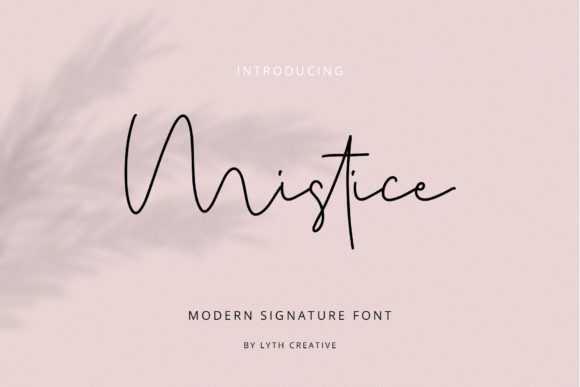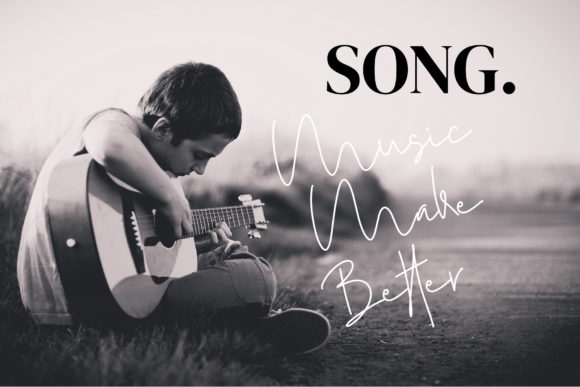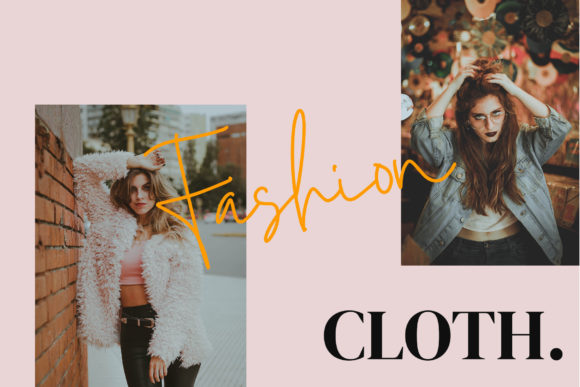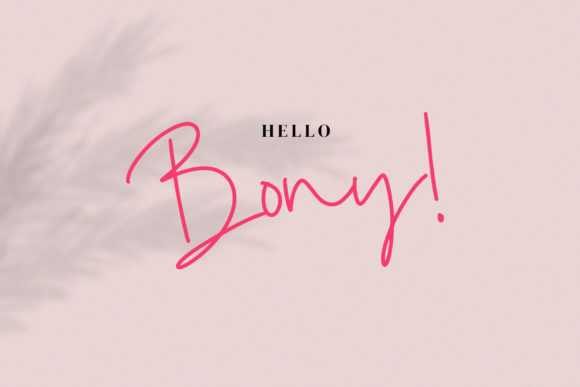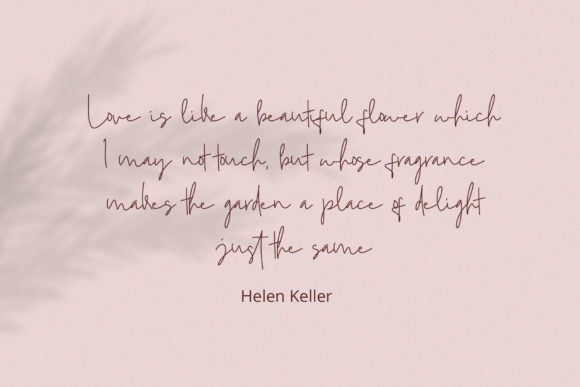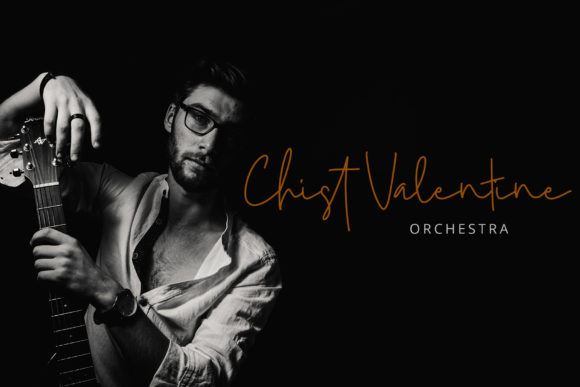
HomeScript FontsMistice Font Script Fonts Mistice Font FacebookXPinterestWhatsApp Mistice Font Poster 2 Mistice Font Poster 3 Mistice Font Poster 4 Mistice Font Poster 5 Mistice Font Poster 6 About Mistice Font Mistice is a fun and cool handwritten font with a bold charm. Fall in love with its authenticity! DOWNLOAD ON CREATIVE FABRICAThis font is sold and delivered by Creative Fabrica. Font Canyon may earn a commission if you buy through this link. People also explored Birthday Font Halloween Font Mimogie Font Perfect Christmas Font Abnormal Font Eighties Font Sweet Bloom Font Anabella Font Cabo Rounded Thin Italic Font 334 0 TagsMistice Font Previous articleOriole Bird FontNext articleMotereal Font LEAVE A REPLY Cancel reply Comment: Please enter your comment! Name:* Please enter your name here Email:* You have entered an incorrect email address! Please enter your email address here Website: Save my name, email, and website in this browser for the next time I comment. Personal Use Free Mahisya Personal Use Free Read more about this font Soulties Personal Use Free Read more about this font Dream Personal Use Free Read more about this font Boby Personal Use Free Read more about this font BLOG Exploring Font Trends Shaping Communication in the Digital Era Fonts, like all design elements, are subject to trends. They play a crucial role in communicating a brand's personality,... Best Fonts for YouTube Videos: Make Your Thumbnails Stand Out Transform Your Website: Elevate Your Typography with 7 Best Web Font Generators Where to Buy American Fonts Online in 2024